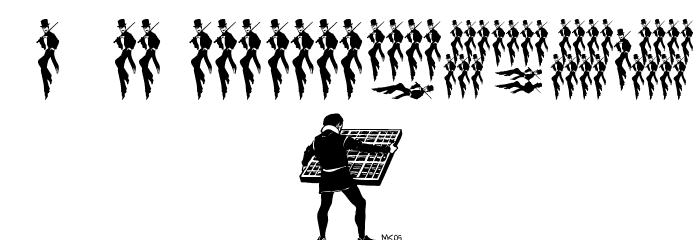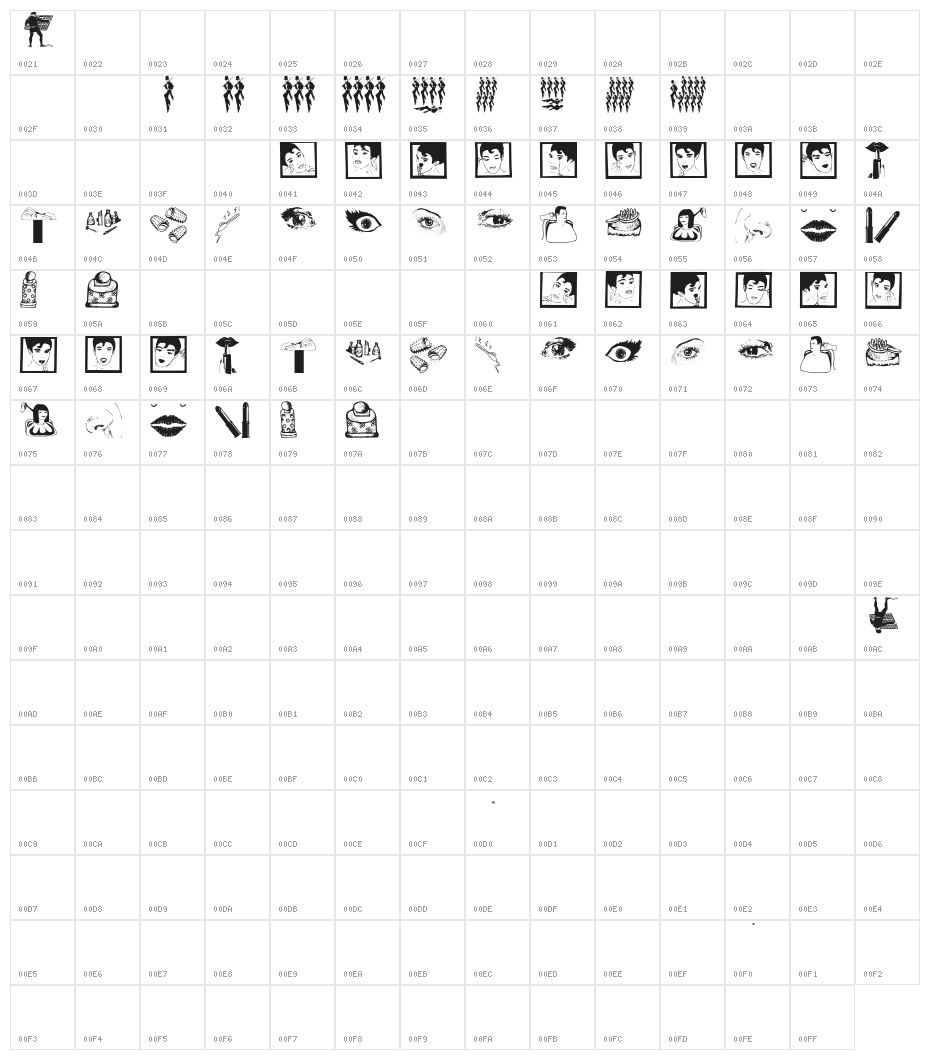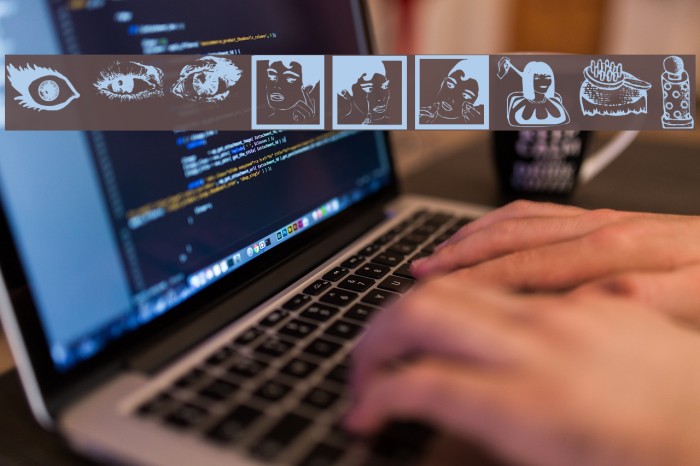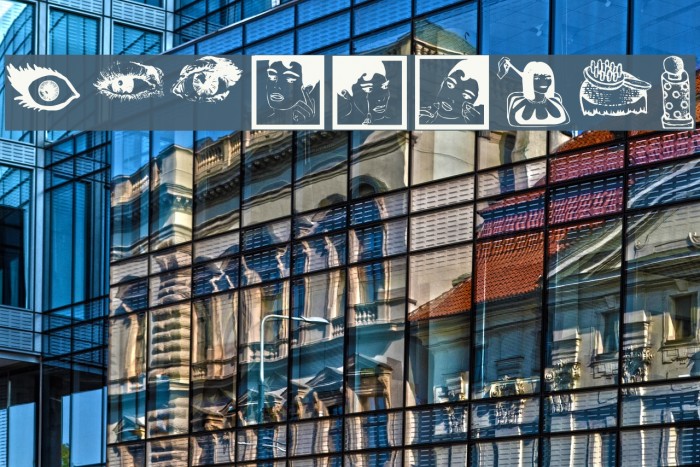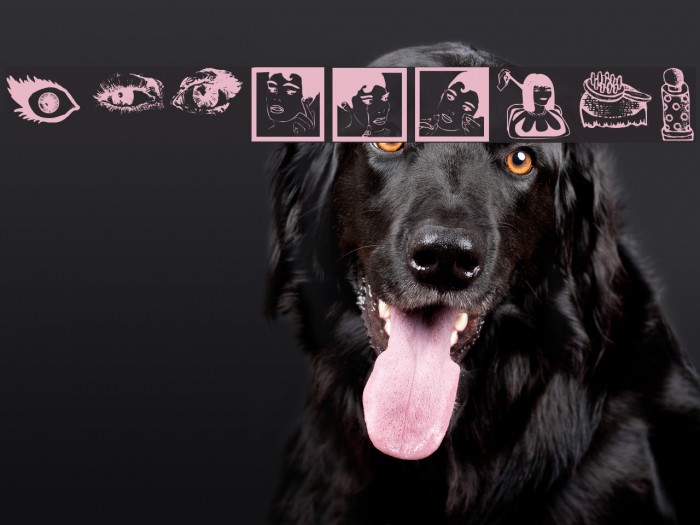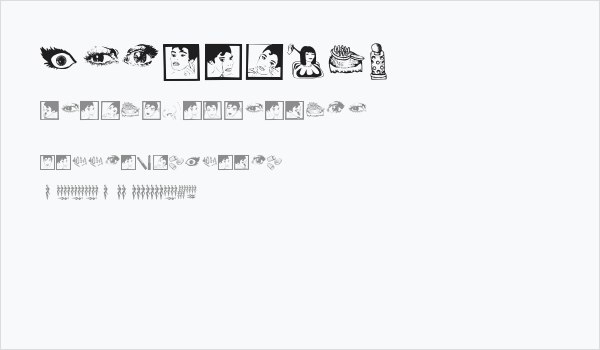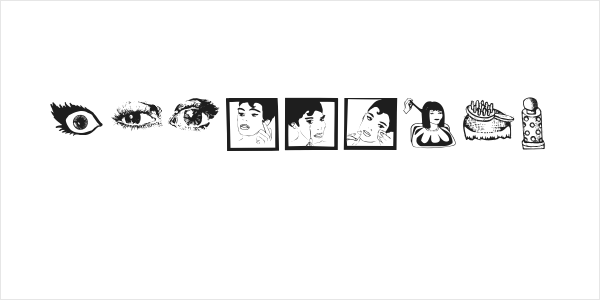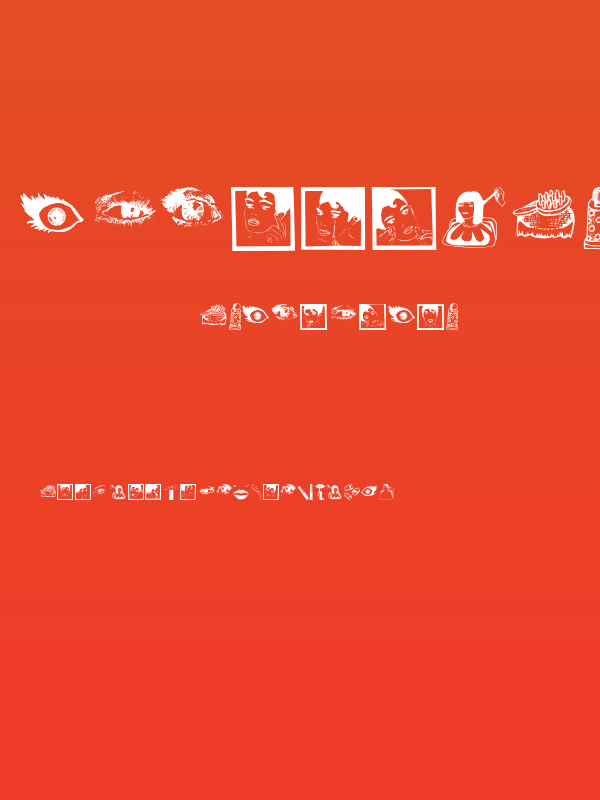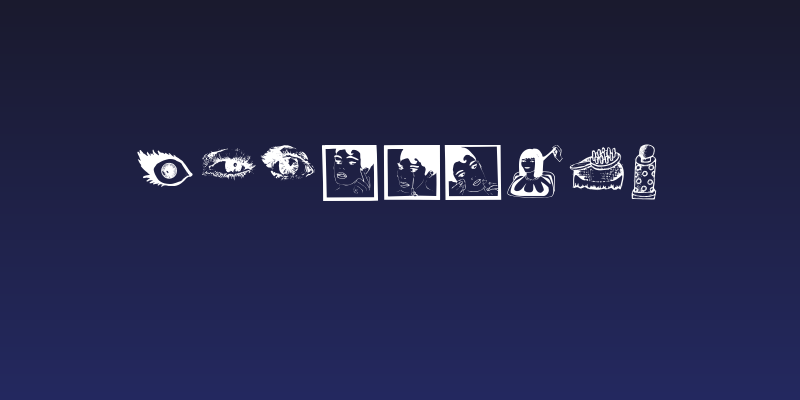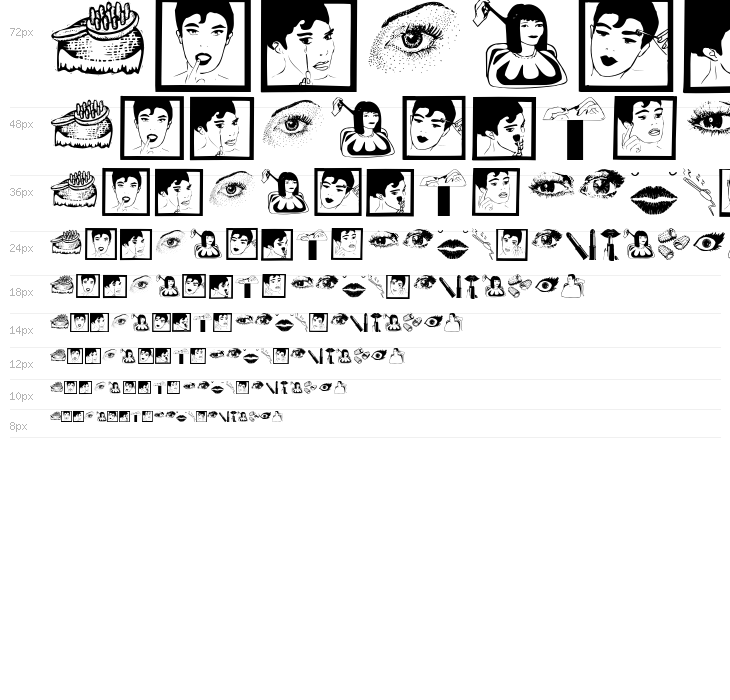
ProBeauty Font
ProBeauty Description
A decorative and illustrative font composed of beauty and makeup-themed pictograms, including faces, eyes, cosmetics, and stylized figures, each character represented by a unique, detailed black-and-white drawing.
| Overall Style | Decorative, Illustrative, Thematic |
| Use Case | Logos, Posters, Themed Headlines, Packaging |
| Proposed Projects | Beauty brand logos, cosmetic packaging, editorial spreads, themed event invitations, creative posters. |